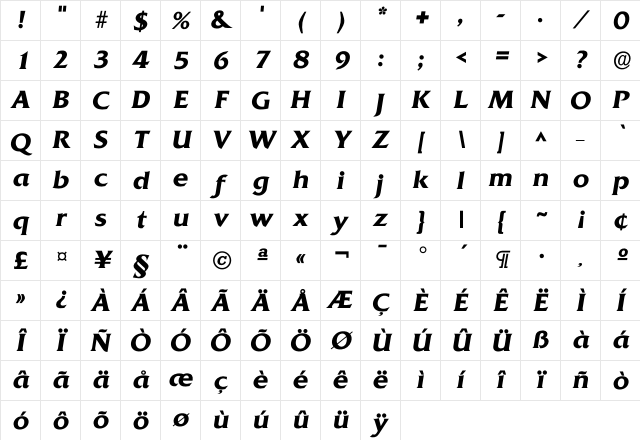
Iquadrat DemiBold Free Font
Iquadrat DemiBold
Style: DemiBold
Complete Iquadrat DemiBold glyph index. Displaying only characters natively supported by Iquadrat DemiBold font.
Design Context for Iquadrat
Iquadrat is a composed and adaptable typeface that performs quietly and consistently across a wide range of design contexts. Its bold stroke weight gives it real presence on the page.